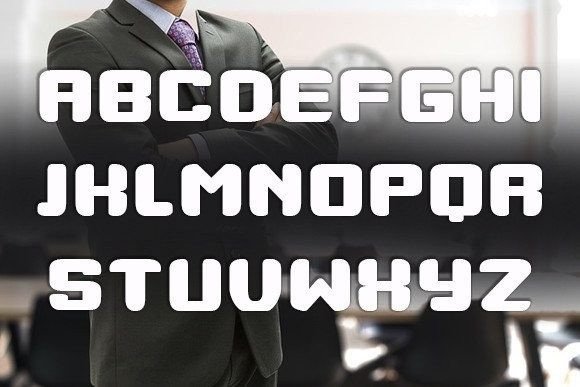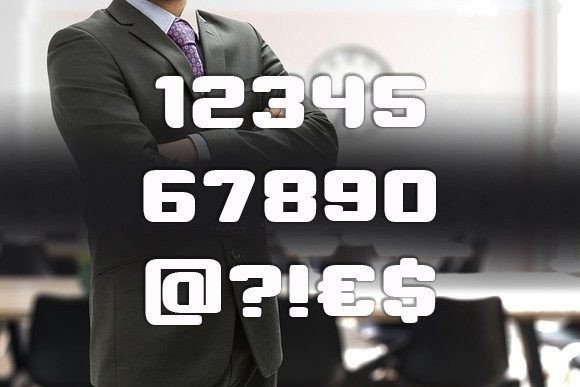
The Birth of a Design Masterpiece
As a designer, you’ve probably had that moment when a spark of creativity strikes, and you envision the perfect visual representation of your idea. It’s a feeling that’s hard to describe, but it’s a mix of excitement, curiosity, and a dash of nervousness. You want to bring your vision to life, but you need the right tools to make it happen. That’s where the Big Boss Font comes in – a stunning, high-end font that will elevate your designs to new heights.
The Big Boss Font is more than just a typeface; it’s a game-changer for designers. With its elegant and sophisticated design, it’s perfect for a wide range of projects, from photography and social media posts to product packaging and special events. Whether you’re a seasoned pro or just starting out, the Big Boss Font is an invaluable asset to have in your design arsenal.
Big Boss Font Key Features
- Font Family: Big Boss is a sans-serif font designed for use in digital and print media.
- Font Size: Big Boss is designed to be highly legible at font sizes ranging from 12 to 24 points.
- Resolution: Optimized for use at high resolutions (up to 300 DPI) for clear display on various digital devices.
- Unique Characteristics: Big Boss features a clean and modern design, with subtle rounded edges and a wide x-height for improved readability.
Designer Review: Big Boss Font
I recently had the chance to work with Big Boss Font, and I must say it’s a unique and interesting addition to any design project. ✨ Here are some of the things that worked well for me:
- Unconventional charm**: Big Boss Font has a certain rugged, vintage feel that can add a lot of character to a design.
- High contrast**: The bold lines and sharp edges create a high-contrast effect that can make text really pop on a page.
- Customization options**: The font offers a range of weights and styles, making it easy to customize for different applications.
- Readability issues**: The font can be a bit difficult to read, especially at smaller sizes or when used for large blocks of text.
- Limited typographic features**: The font doesn’t have a lot of advanced typographic features, such as ligatures or swashes.
- Not suitable for body text**: Due to readability issues, Big Boss Font is best used for headlines or titles, rather than body text.
Overall, I’d say Big Boss Font is a great choice for designers looking to add some personality to their projects. While it has some limitations, its unique charm and customization options make it a valuable addition to any design toolkit.
Big Boss Font is ideal for use in bold, eye-catching designs, particularly for:
– Movie and TV title sequences
– Video game menus and titles
– Sports and action-themed branding
– Titles and headings in graphic design projects